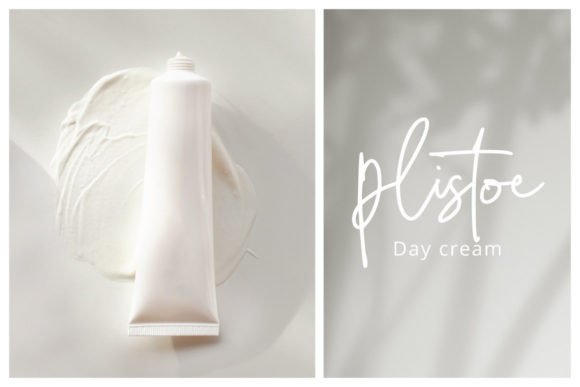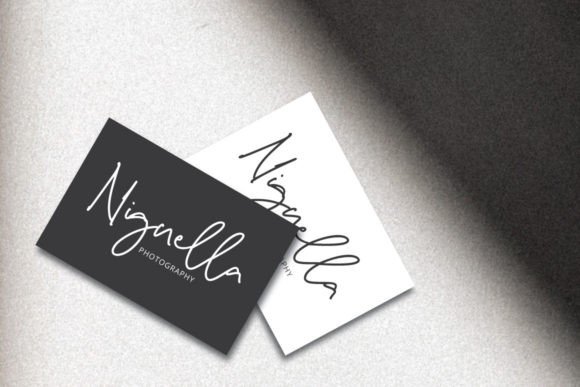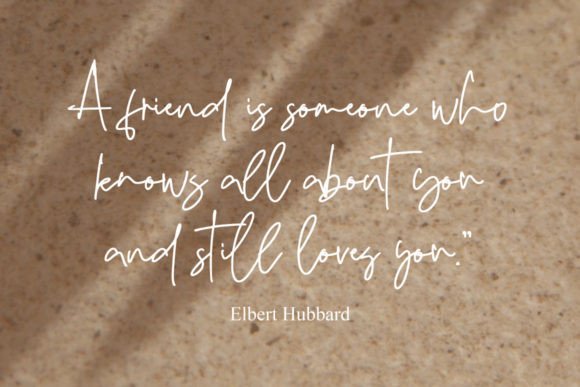
Introduction to Sivadust Font
Sivadust s a graceful and elegant signature script font that combines classic and modern design elements.
Its flowing letterforms and delicate alternates create a timeless look that is perfect for wedding invitations, branding, and other high-end design projects .
Key Features of Sivadust Font
Why Choose Sivadust Font?
Sivadust Font offers exceptional quality and versatility, making it a valuable addition to your design toolkit. Whether you’re creating for personal projects or commercial use, Sivadust Font delivers professional results.